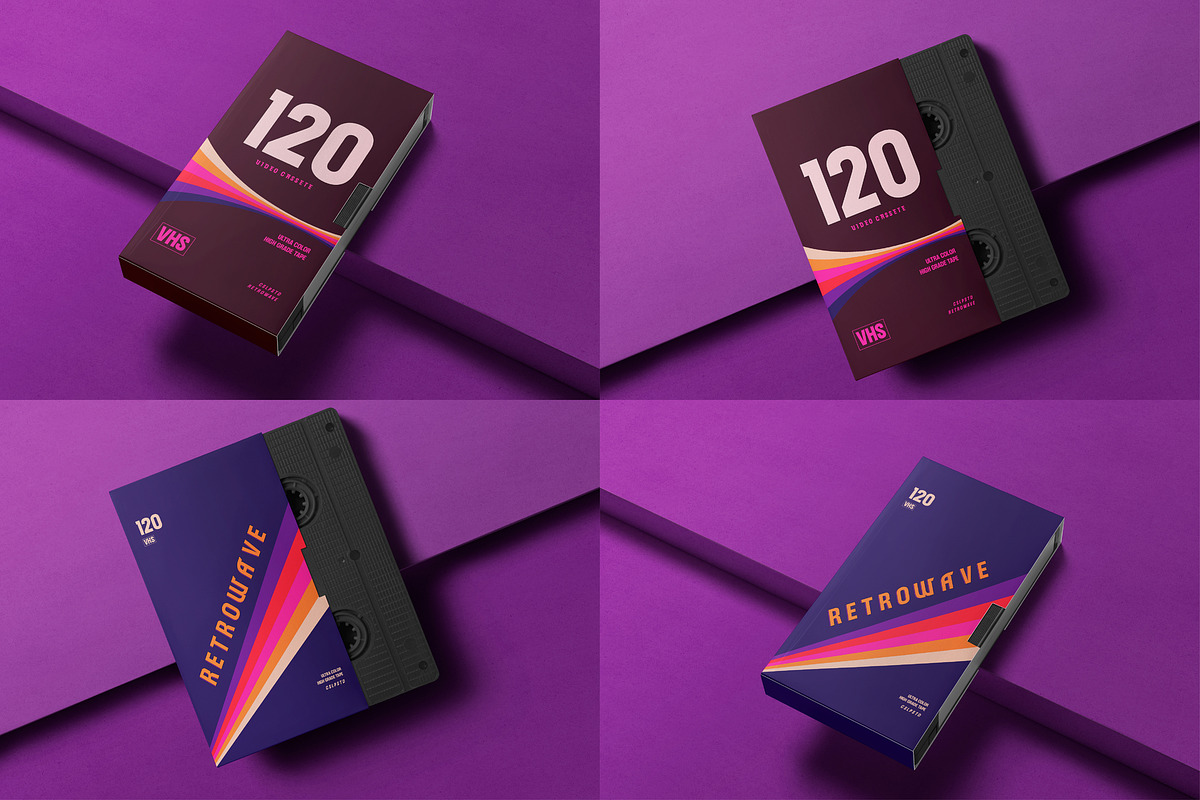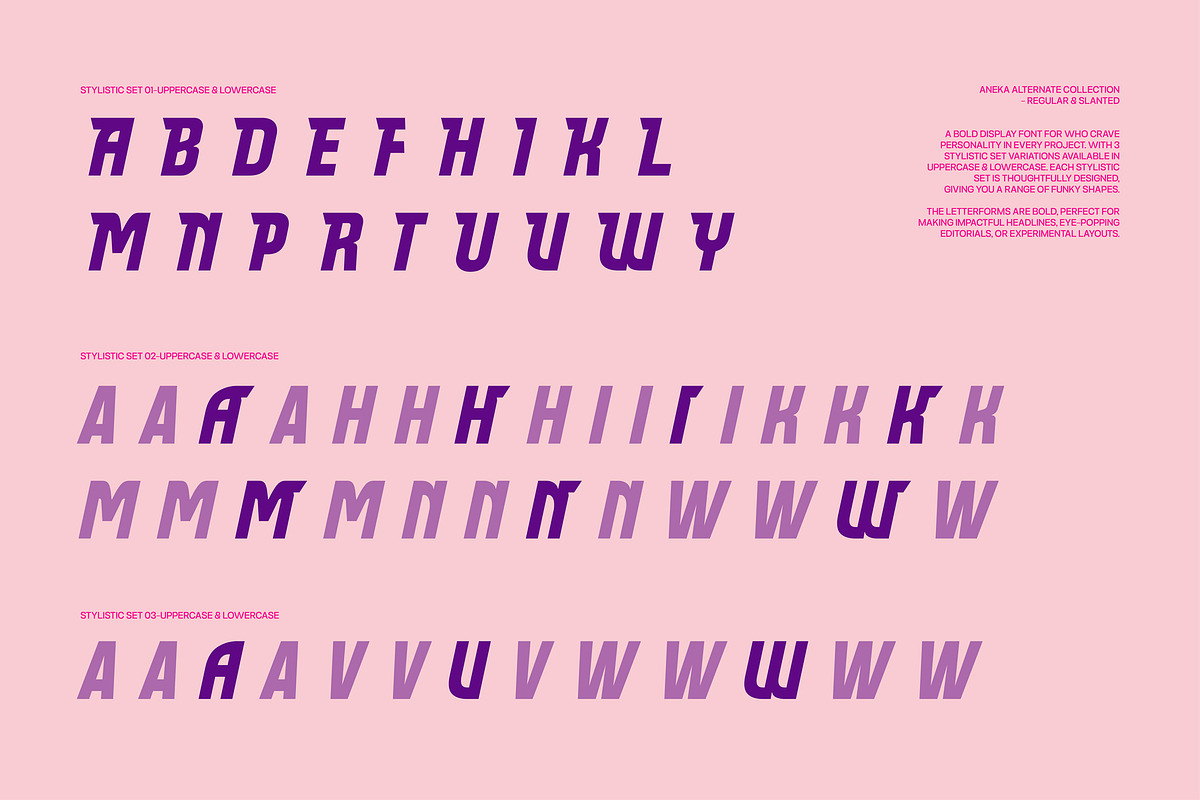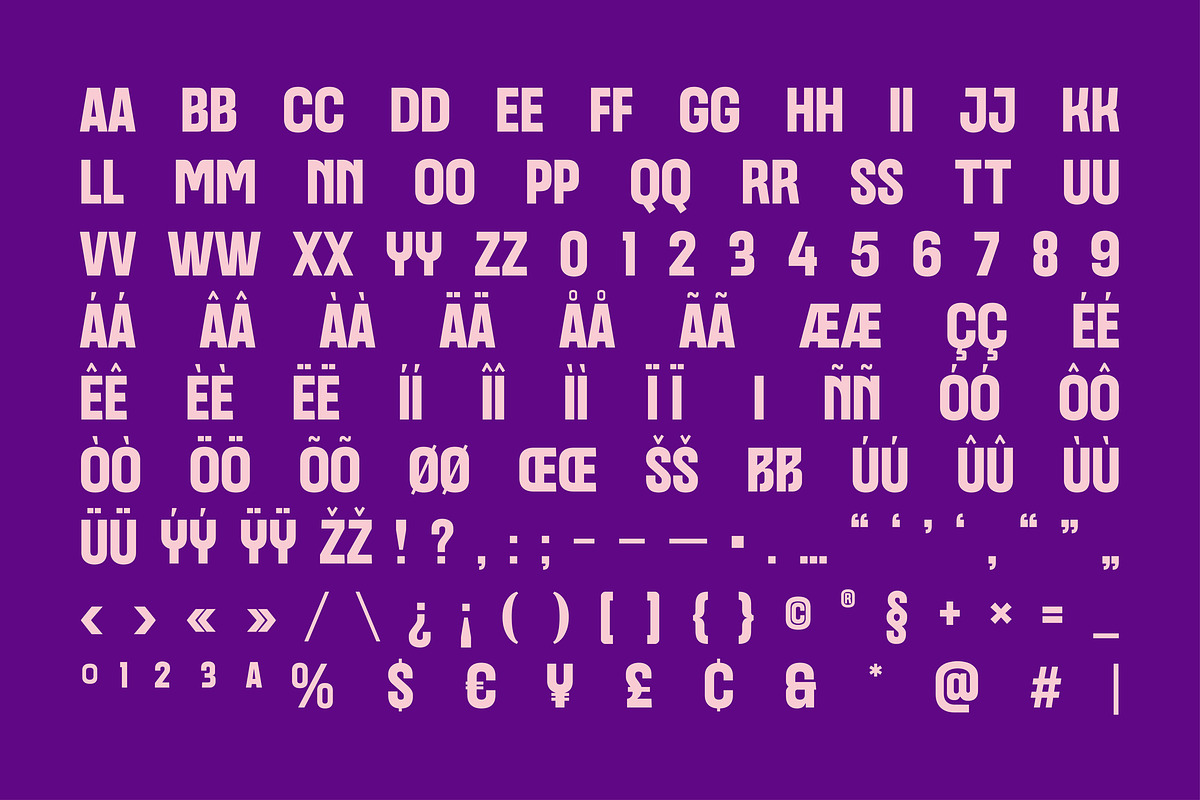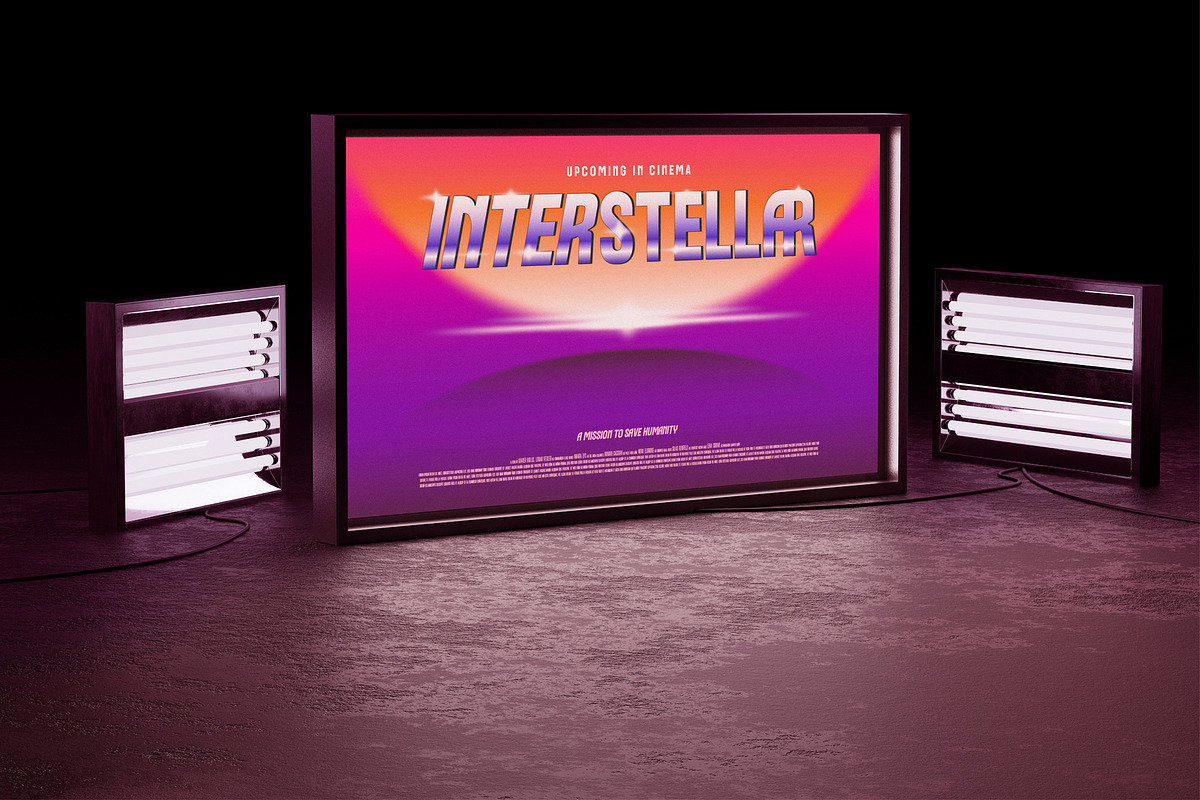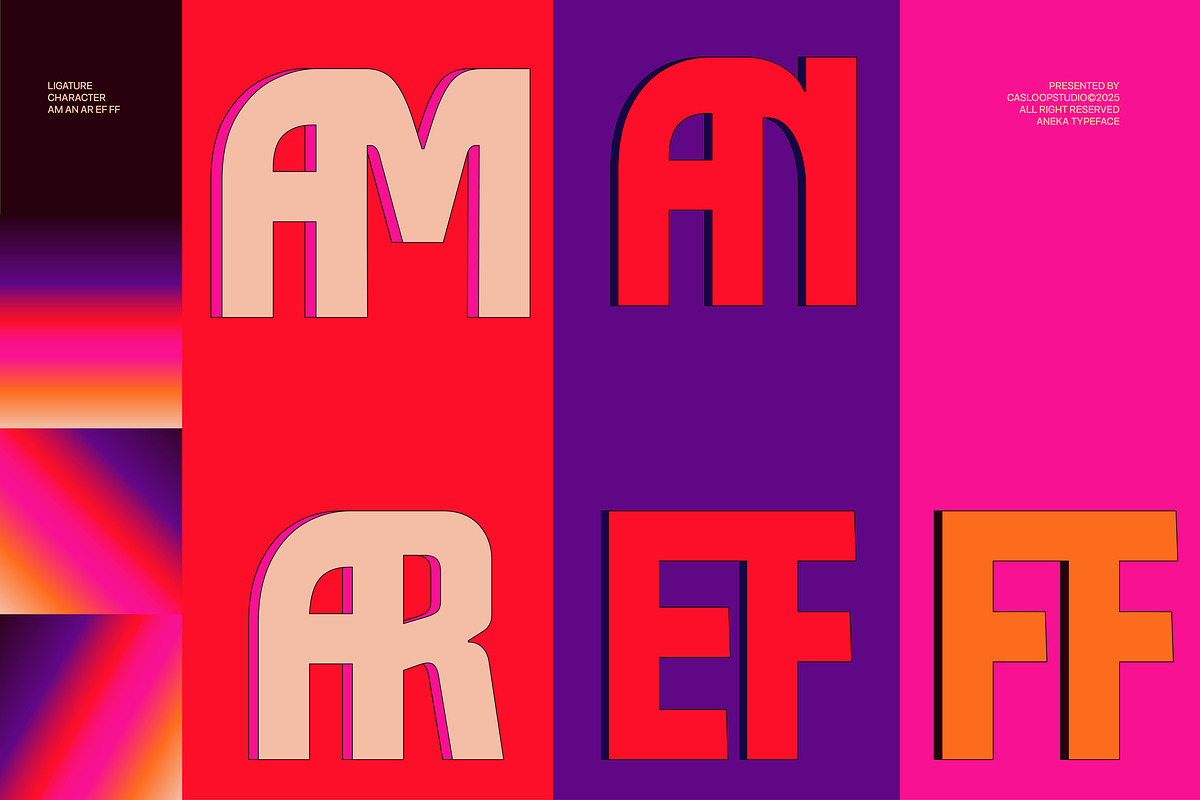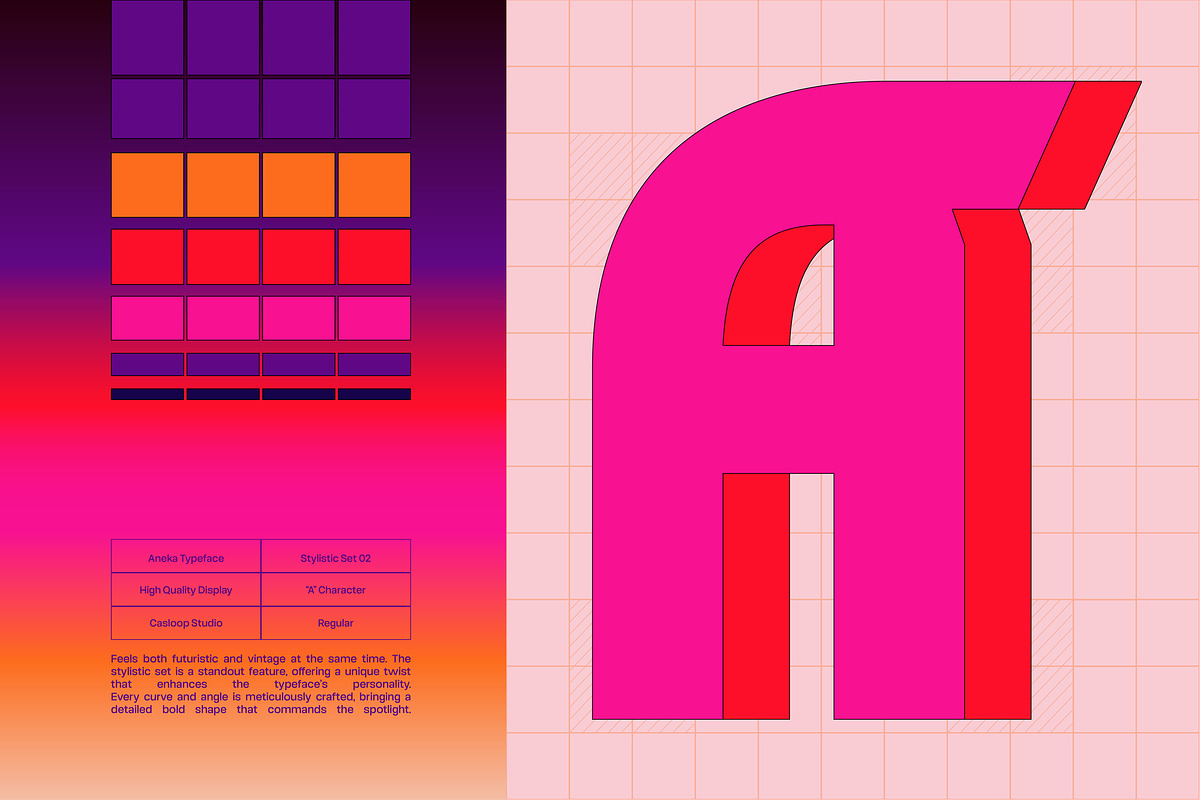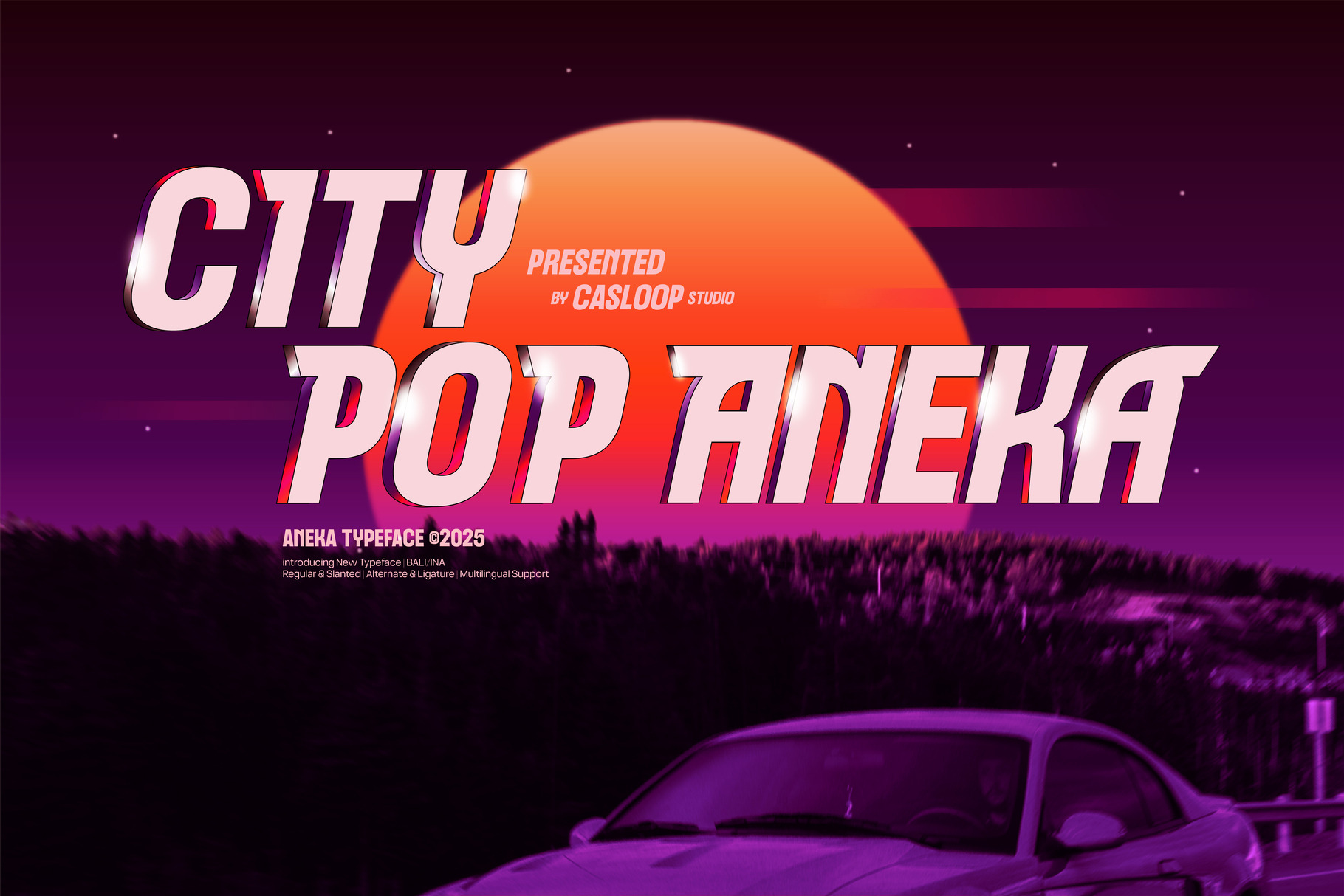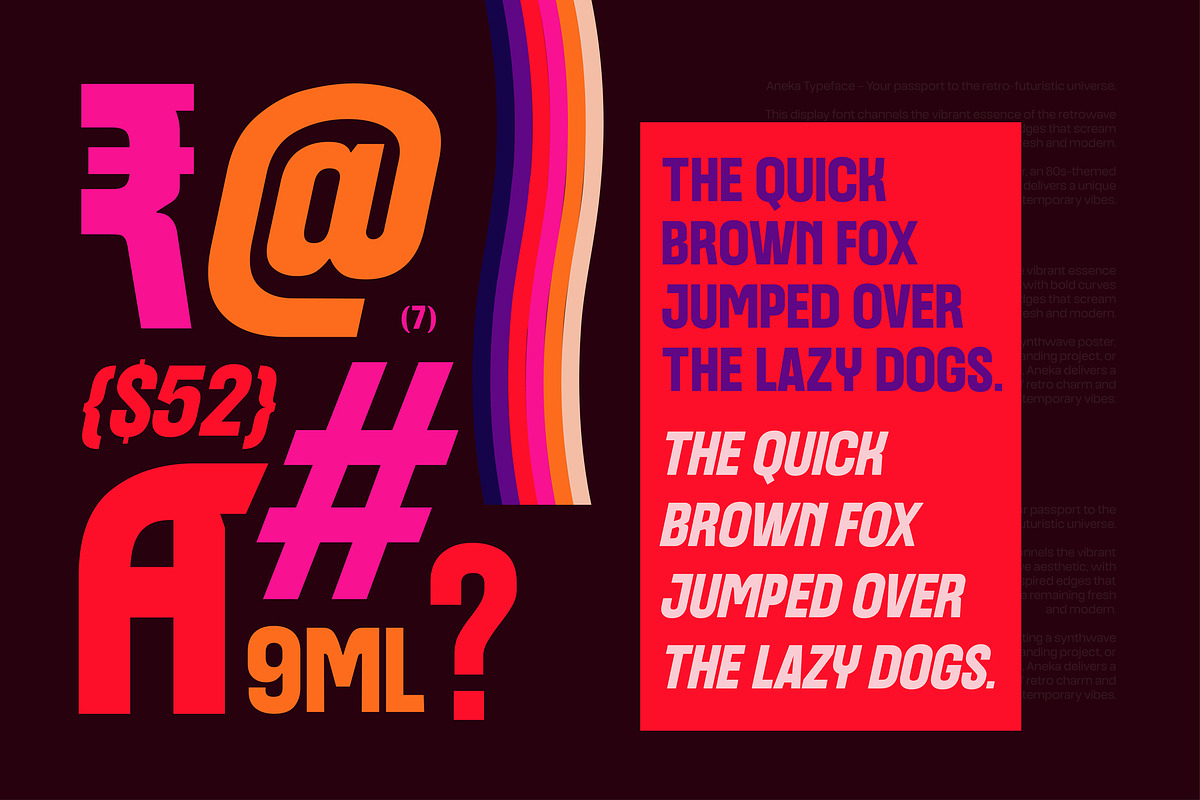
Aneka - VHS 80s City Pop Retro Font
Aneka Typeface — A Bold Retro-Futuristic Display Font Aneka is a high-impact display typeface designed to transport your projects into a retro-futuristic universe. Perfect for standout branding, nostalgic posters, and captivating editorial layouts, Aneka blends bold geometric shapes with a modern edge. This typeface radiates personality and charm, making it ideal for creatives who want to break the mold and make a statement. a poster with bold visuals, crafting branding with character, or adding a retro twist to your work, Bekix is built for creators who want to leave an impression. It’s versatile, vibrant, and ready to elevate your next project.
Features of Aneka Typeface -Bold Letterforms: Thick, confident shapes that dominate the design space, perfect for making an impact. -Stylistic Alternates & Ligatures: Custom alternates and playful ligatures let you experiment and add flair to your work. -Retro-Futuristic Aesthetic: A harmonious blend of vintage 80s influences and sleek, modern design. Multilingual Support: Extensive language coverage with accented characters, so your designs can speak to a global audience. -High Versatility: Perfect for everything from posters to packaging, logos, and editorial layouts. File Includes:
Applications Branding: Aneka’s bold and versatile style is perfect for logos, product packaging, and visual identities. Posters & Event Graphics: Create visually striking designs for music events, festivals, and campaigns with Aneka’s attention-grabbing style. Social Media Content: Bring vibrant energy to posts and stories with Aneka’s retro-futuristic vibe. Editorial Design: Enhance zines, magazines, and publications with unique headlines and typographic details. Merchandise & Packaging: Add character to products and packaging that demand attention on the shelf. Aneka is all about commanding attention. Its bold, geometric letterforms make it perfect for headlines, branding, and designs that can’t afford to go unnoticed. Whether you’re reimagining vintage visuals or adding a futuristic touch, Aneka delivers personality and impact with every project. From posters and album covers to packaging and merchandise, Aneka thrives in projects that need to make a bold statement. With its blend of retro charm and contemporary sophistication, Aneka is designed for creators who aren’t afraid to push the boundaries. Aneka invites you to explore bold creativity with a typeface that’s anything but ordinary.